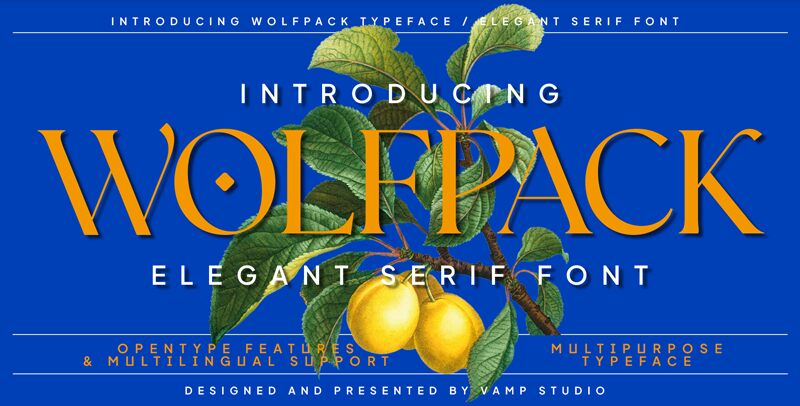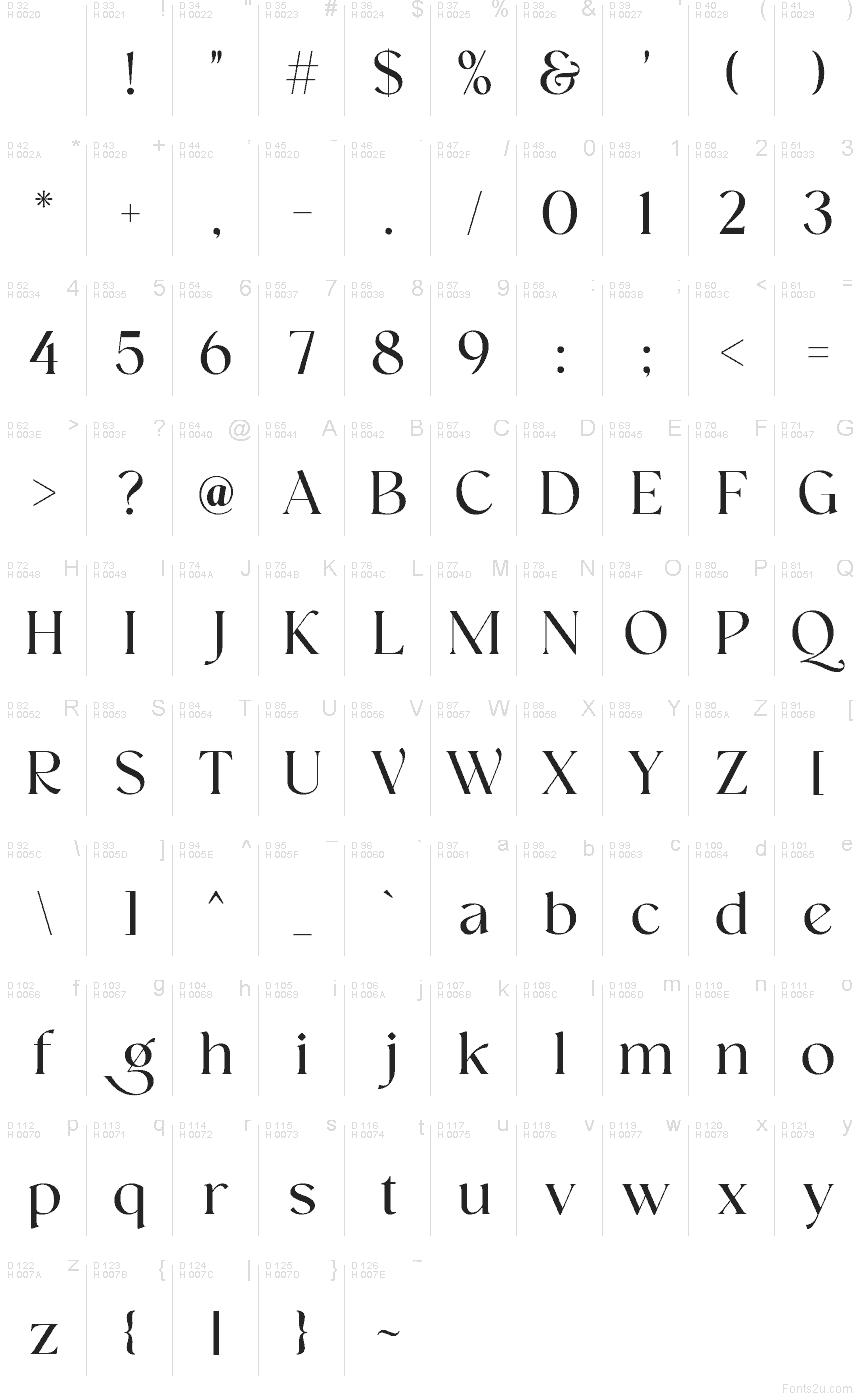
Wolfpack Regular
Wolfpack font by VampStudio is a free serif typeface with a sleek, predatory grace that feels both elegant and a little dangerous. Its slender strokes, sharp hooks, and long, prowling curves give each word a subtle bite, like ink drawn with a finely honed nib. Letters feel tightly disciplined yet expressive, creating a refined tension that instantly pulls the eye.
Using Wolfpack, headlines and wordmarks gain a dark, editorial drama that works beautifully for book covers, fashion branding, perfume labels, film posters, and moody social graphics. This free font shines when given room to breathe, so set it larger and pair it with a clean geometric sans for small supporting text to let its edge stay crisp and commanding.